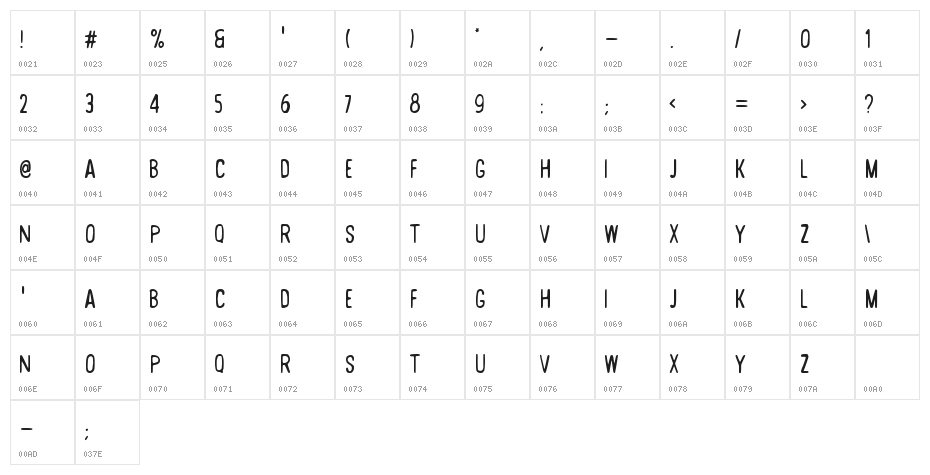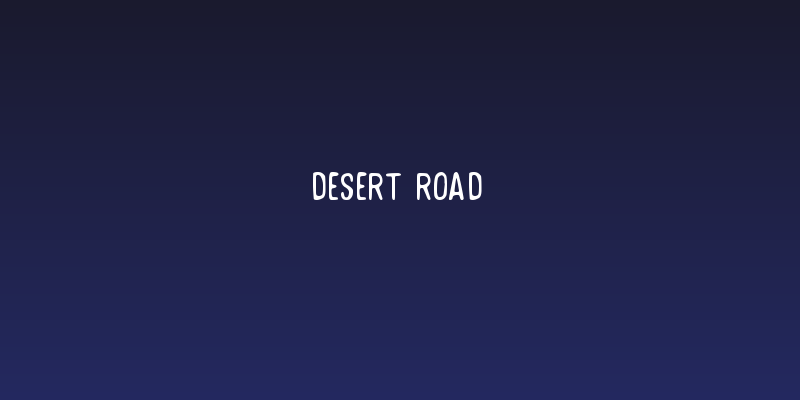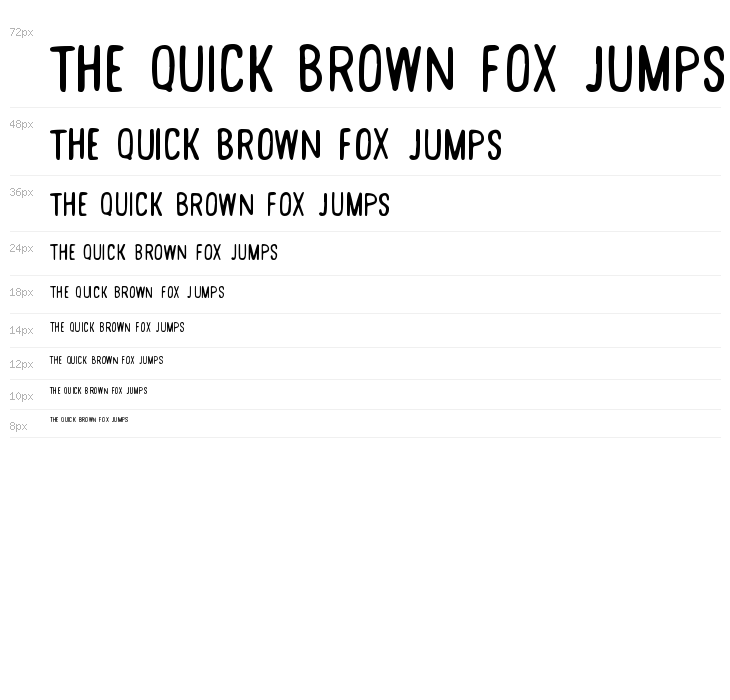
Desert Road Font
Desert Road Description
This font features a playful and rounded style, characterized by its smooth curves and slightly irregular shapes that give it a hand-drawn appearance. The letters are bold and have a consistent thickness, making them highly legible. The overall design is casual and friendly, with a touch of whimsy that adds personality to any text. The numbers and special characters maintain the same playful aesthetic, ensuring a cohesive look across all elements. This font is versatile and can be used in various design contexts where a relaxed and approachable feel is desired.
| Proposed Projects | Ideal for children's books, playful branding, casual invitations, and creative posters. |